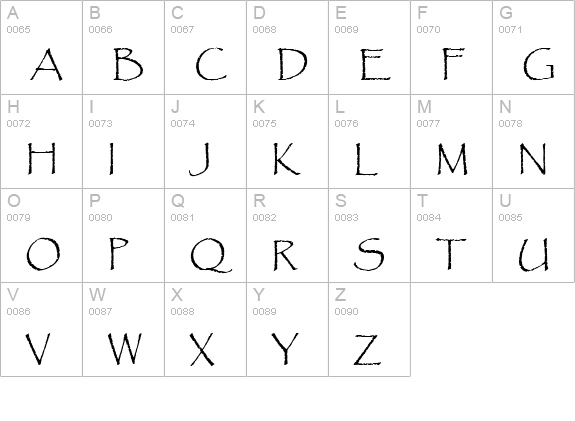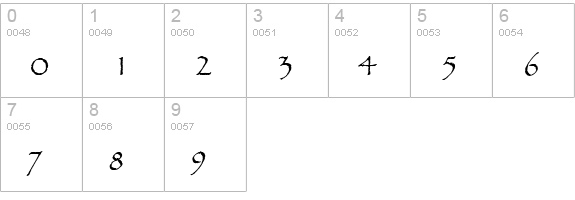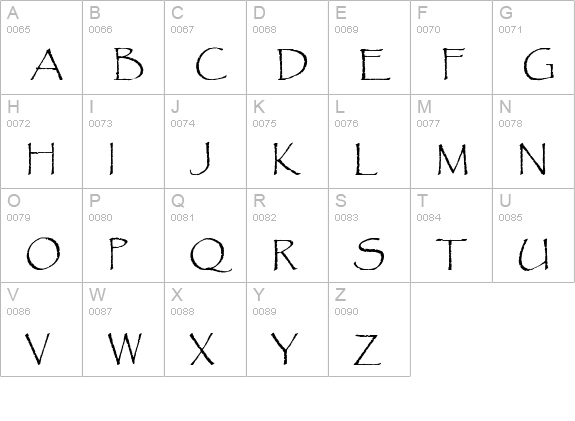
URWPallasT Font Details
URWPallasT is a free for personal use font in the Script > Handwritten category, designed by Samplefont22. It has been downloaded 8 times and is available for Windows, Mac and Linux.
URWPallasT is a captivating and versatile font that exudes elegance and sophistication. With its sleek lines and balanced proportions, this typeface is perfect for a wide range of design projects, from branding to editorial design. Its timeless appeal and modern aesthetic make it a go-to choice for designers looking to add a touch of sophistication to their work.